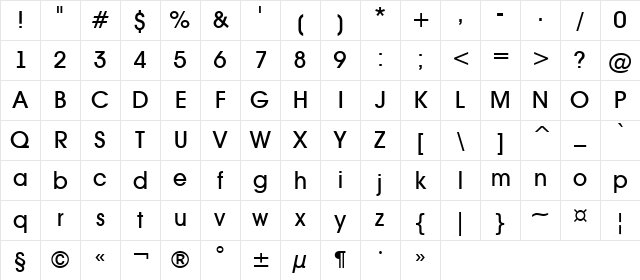
Complete a_AvanteTck Medium glyph index. Displaying only characters natively supported by a_AvanteTck Medium font.
a_AvanteTck is a composed and adaptable typeface that performs quietly and consistently across a wide range of design contexts.